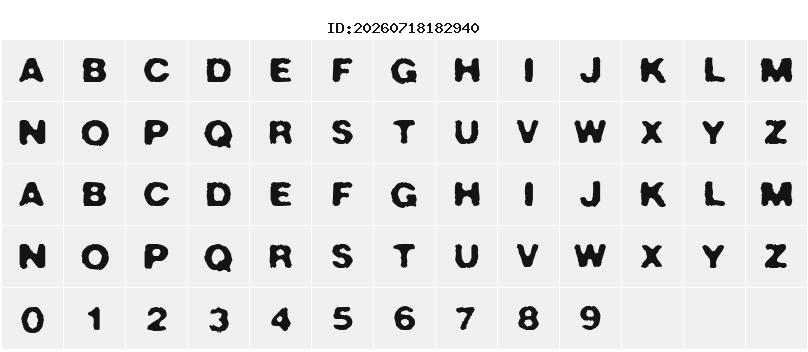
Crush49 Preview
• Font Name: Crush49
• Full Font Name: Crush49
About Crush49.ttf
Crush49.ttf is a modern, elegant sans-serif font designed for ultimate readability and visual harmony. Perfect for branding, headlines, web design, and print materials.